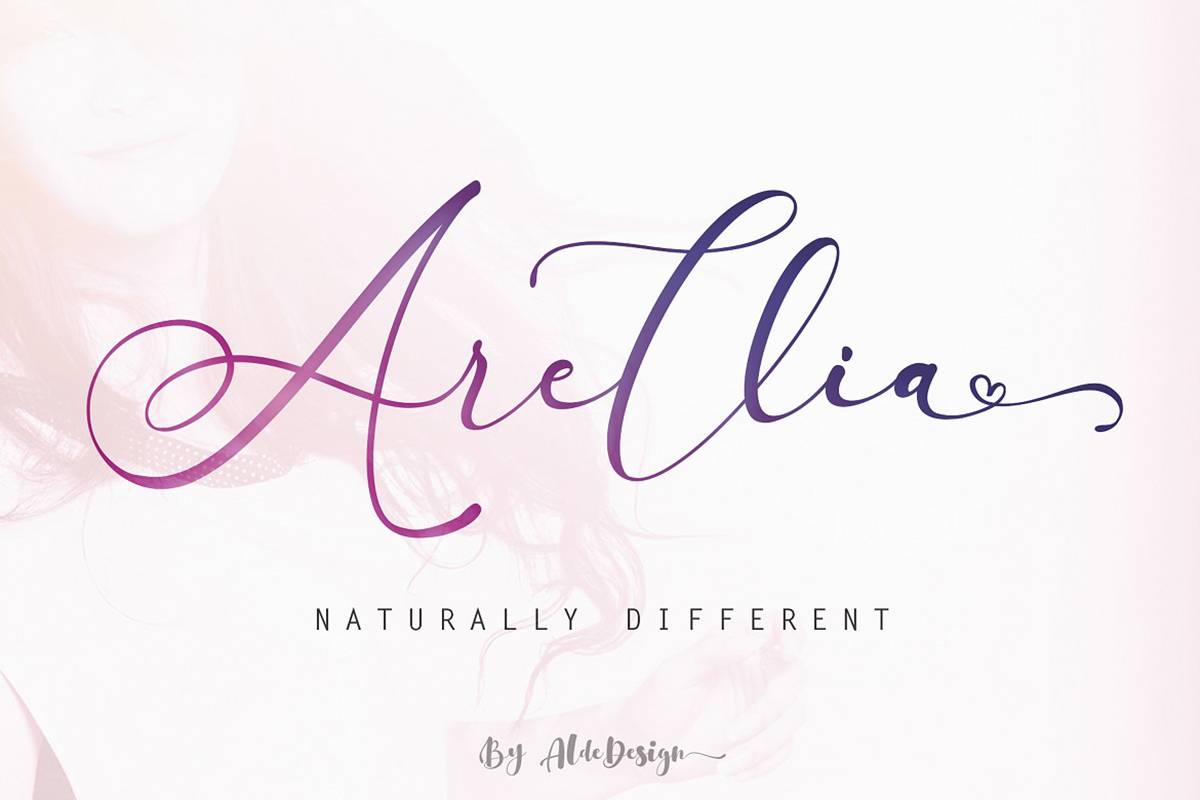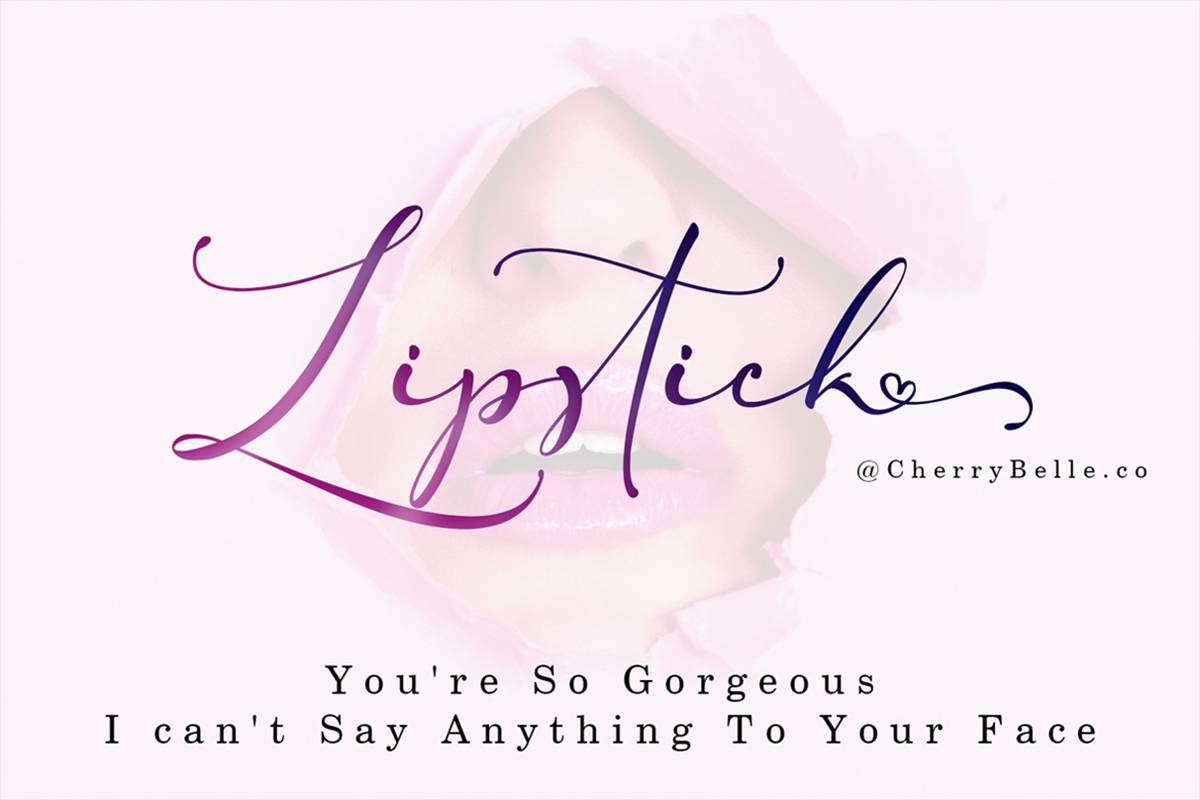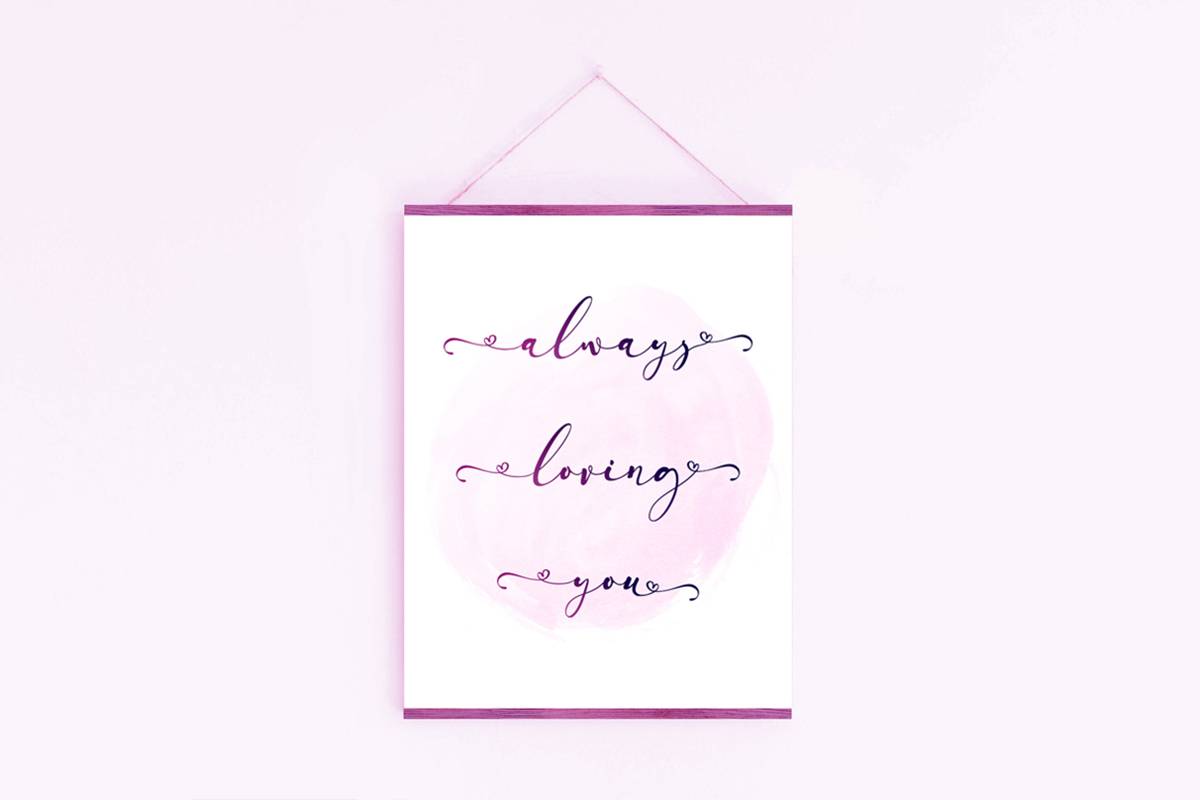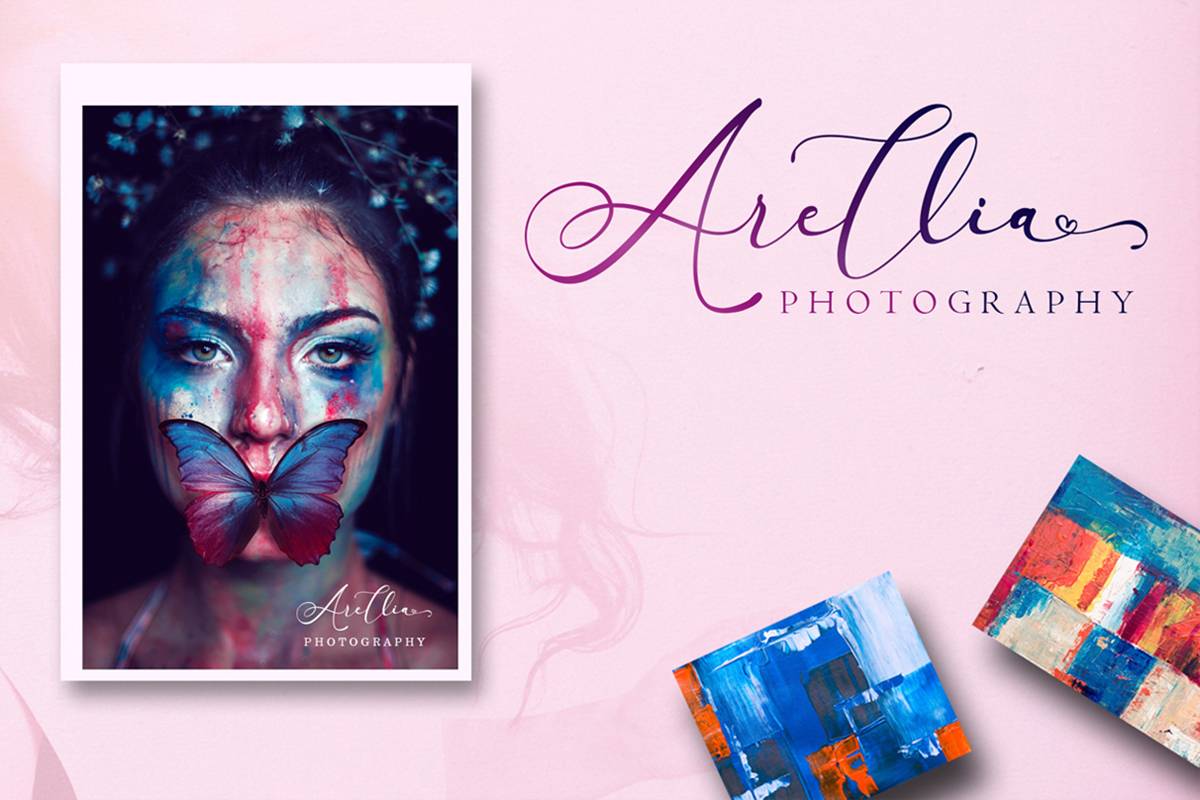
Arellia Script is an elegant and delicate script font featuring graceful, flowing strokes with high contrast between thin and thick lines. Its ornate uppercase letters and refined lowercase characters create a luxurious, sophisticated feel that works beautifully for wedding invitations, branding, and upscale editorial design. This font adds a touch of classic romance and refinement wherever a stylish, handwritten look is desired.
Arellia Script Font
About Arellia Script Font
| Font family | Arellia Script Font |
| Designer | Aldedesign 2019 |